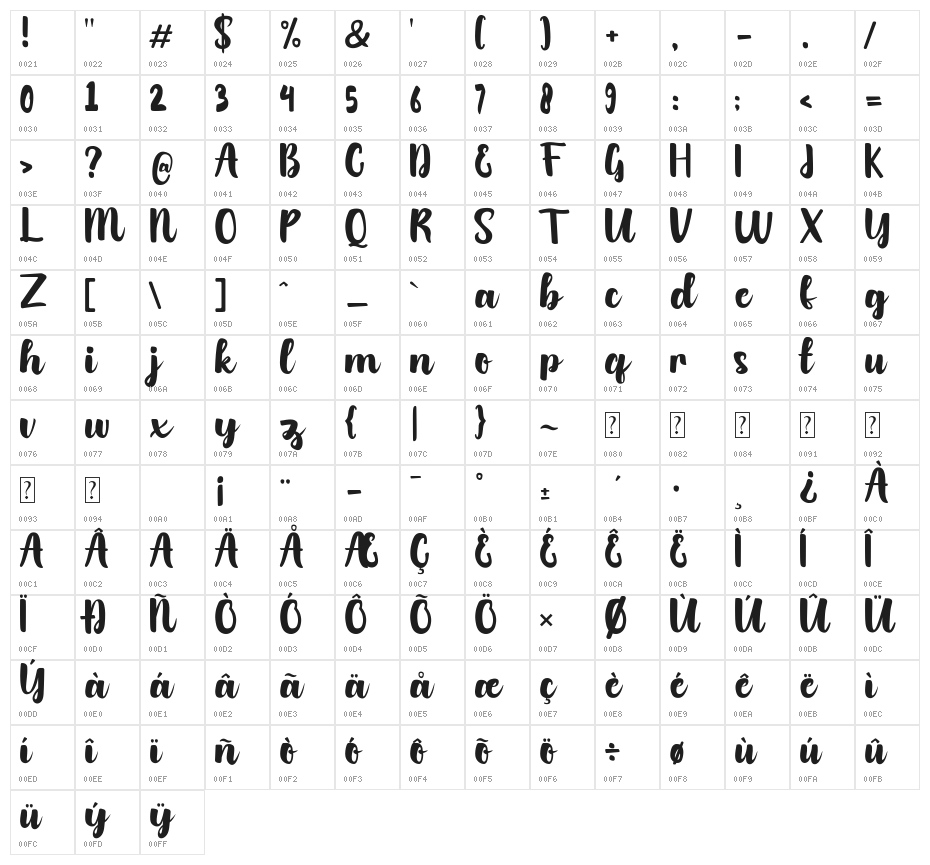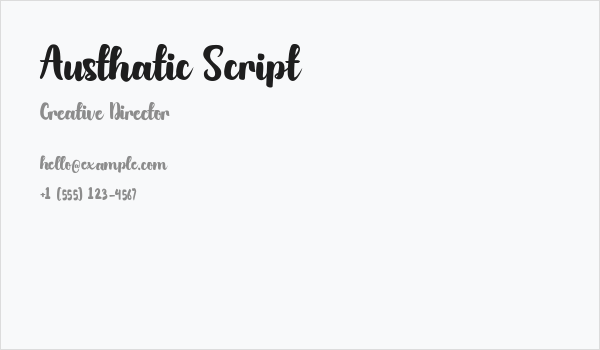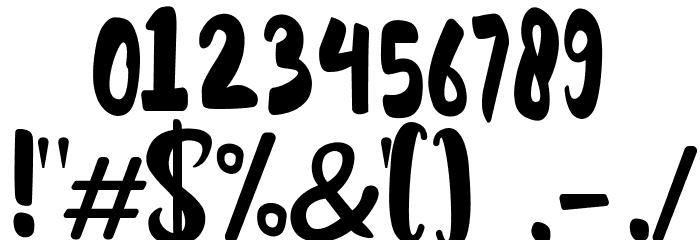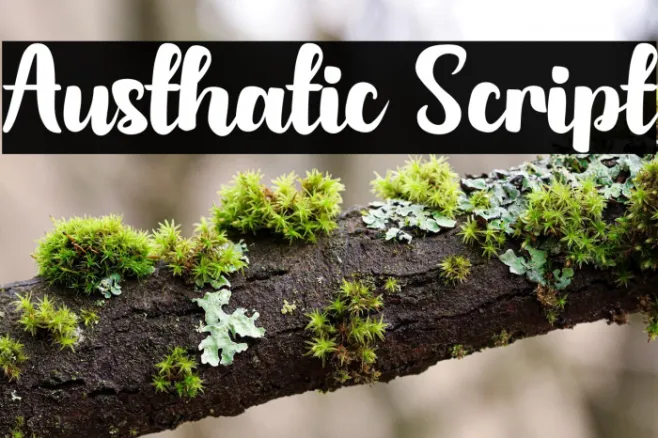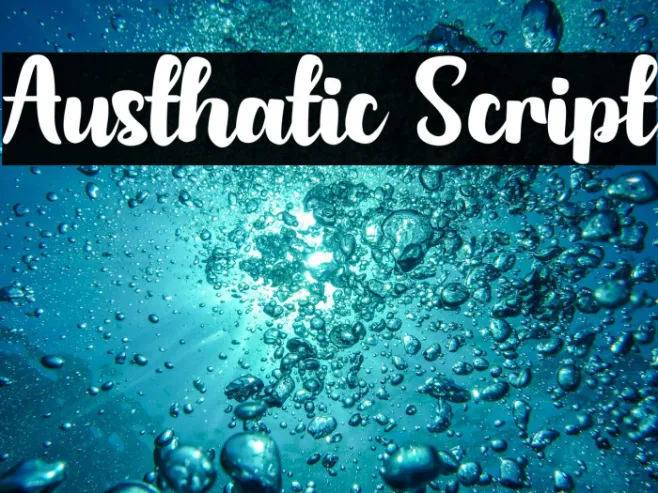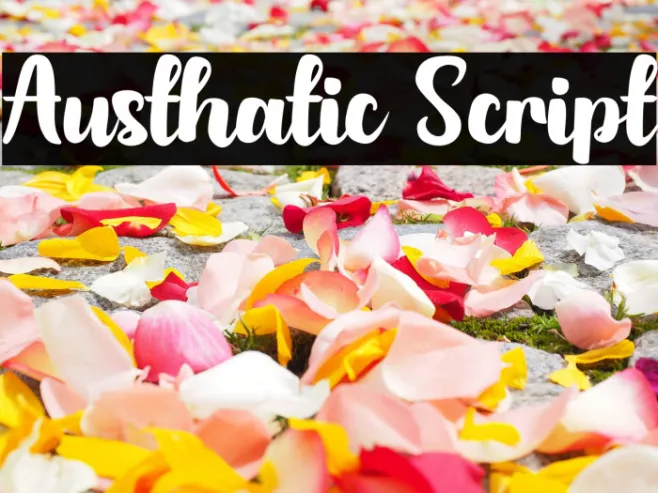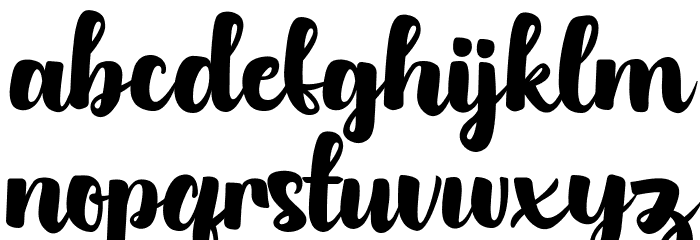
Austhatic Script Font
Austhatic Script Description
This font features a bold and expressive script style, characterized by its flowing, cursive letterforms. The strokes are thick and consistent, giving it a strong presence on the page. The uppercase letters are particularly striking, with a playful yet elegant flair, while the lowercase letters maintain a smooth and connected appearance. The numerals and special characters are designed to match the overall aesthetic, ensuring a cohesive look across all text. This font exudes a sense of creativity and warmth, making it ideal for projects that require a personal touch.
| Proposed Projects | Ideal for branding, invitations, greeting cards, and creative projects that require a personal and artistic touch. |